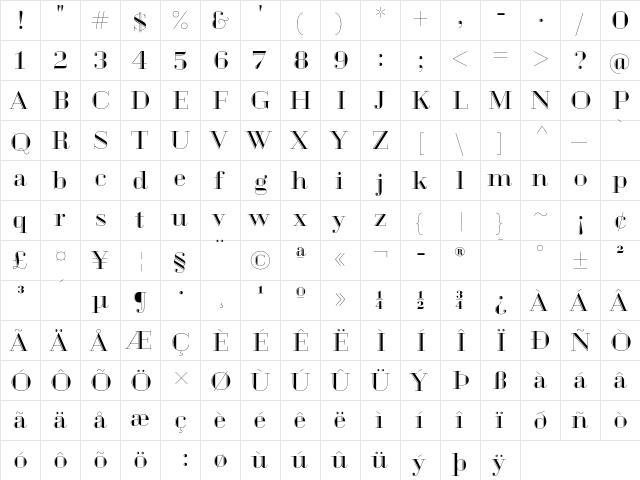
Geotica Two Engraved
| Style | Engraved |
| Foundry | Jos Buivenga |
| Designer | Jos Buivenga |
Design Context for Geotica Two Typeface
Geotica Two is built around its visual character rather than neutral utility — its distinctive forms are designed to make an impression at display sizes.
Font Pairing: Pair with a clean neutral sans-serif for body copy to let Geotica Two's character lead without overwhelming the composition.
Pro Tip: Use Geotica Two exclusively at display sizes — it was designed to be seen, not read at length. Let a neutral companion handle body copy.